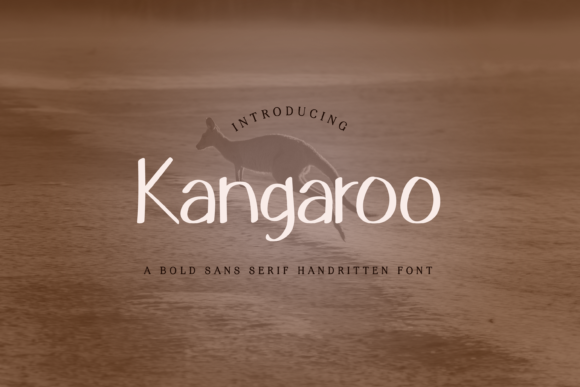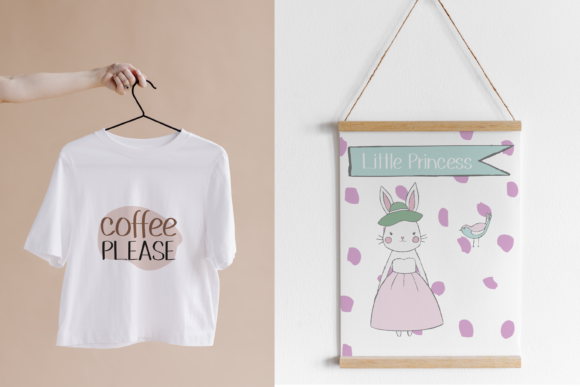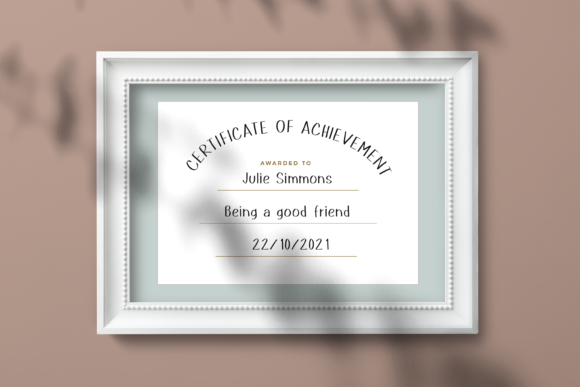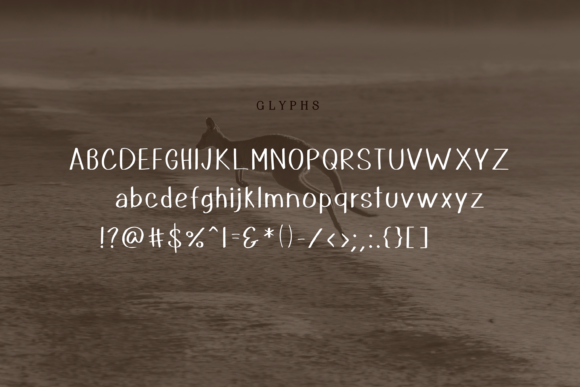
Kangaroo Font
About Kangaroo Font
Kangaroo is a simple handwritten font that can be used for all chalkboard quotes or teaching material! Its authentic look and feel will add a personal and realistic feel to your designs.